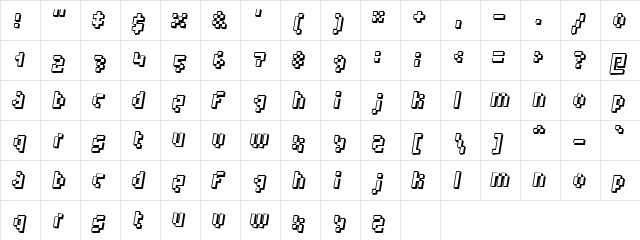
Humanoid Regular
Design Context for Humanoid Typeface
Humanoid is a composed and adaptable typeface that performs quietly and consistently across a wide range of design contexts.